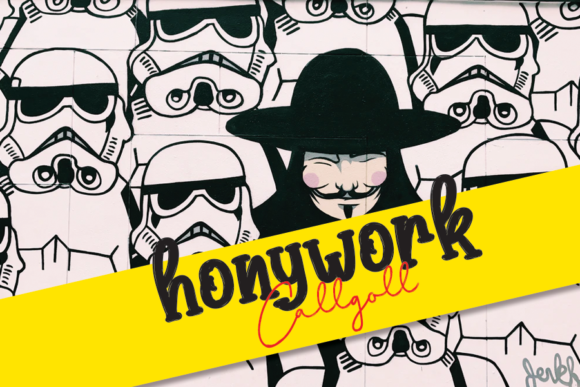
Introducing Honywork Font - The Exquisite Handcrafted Script That Will Make Your Designs Bloom!
In a world of digital monotony, where fonts often blend into a sea of sameness, Honywork Font stands apart as a beacon of creativity and elegance. This captivating script font, meticulously crafted by andikastudio, is a symphony of delicate strokes and enchanting curves, designed to elevate your designs to new heights of sophistication.
Honywork Font is more than just a collection of letters and symbols; it's an artistic expression that speaks volumes about your brand's personality. Its graceful lines evoke a sense of timeless elegance, while its intricate details add a touch of whimsy and playfulness. Whether you're creating logos, invitations, social media posts, or any other design project, Honywork Font will effortlessly transform your words into works of art.
Indulge in the beauty of Honywork Font and witness the transformative power it brings to your creative endeavors. Let its enchanting characters dance across your designs, captivating your audience with their undeniable charm.